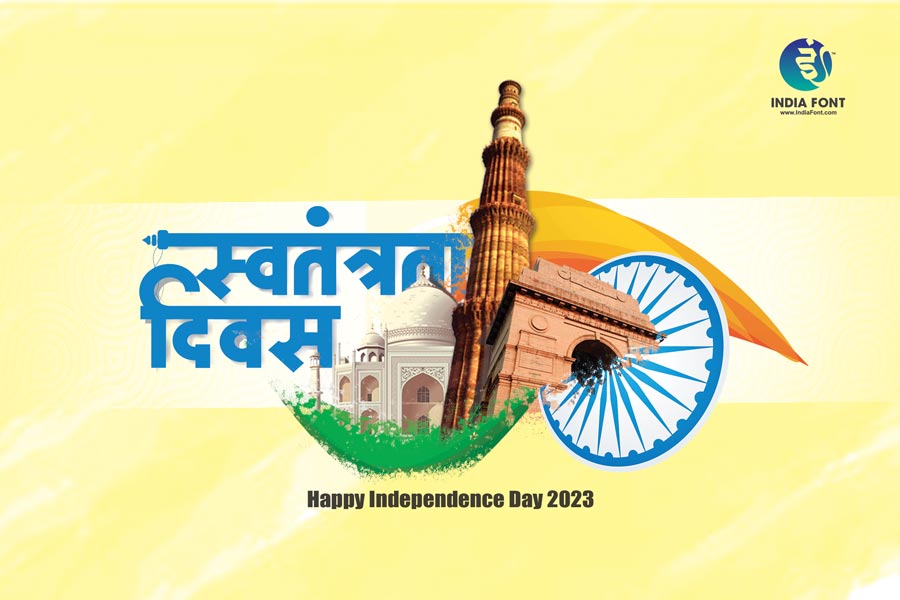
As Independence Day draws near, our excitement to celebrate this momentous occasion grows stronger. It's a time when we come together as a nation to commemorate the journey of our freedom and express our patriotic fervor. With the digital world becoming an integral part of our lives, sharing our heartfelt wishes, thoughts, and messages has evolved. And what better way to convey our emotions than through creatively designed graphics and text? This is where the significance of Free Indian font downloads comes into play.
IndiaFont recognizes the importance of enabling you to express your patriotism with style. We are committed to providing a range of exceptional Indian fonts that resonate with the essence of our culture, history, and national pride. As we gear up to celebrate Independence Day and express our love for the nation, let's explore the world of fonts that encapsulate the spirit of India.
Top 10 Free Indian Font Downloads
Our curated collection of Indian fonts serves as a tribute to our diverse culture and heritage. These fonts have been thoughtfully designed to capture the essence of our nation, allowing you to infuse your designs with a touch of patriotism. Whether you're designing social media posts, banners, invitations, or other creative content, our carefully selected Indian fonts are tailor-made to reflect your love for the country.
Premium Indian Fonts for Independence Day:
Elegant and graceful font perfect for patriotic invitations and ceremonial designs
Ceremonial
Epic and powerful font embodying the spirit of Indian epics and national pride
Epic
Handcrafted artistic font celebrating traditional Indian craftsmanship and culture
Traditional
Illuminating font symbolizing the light of freedom and national enlightenment
Spiritual
Royal and majestic font honoring Indian sovereignty and national dignity
Royal
Sophisticated calligraphy font perfect for formal Independence Day documents
Calligraphy
Sky-inspired font representing the limitless potential of free India
Modern
Bright and radiant font symbolizing the dawn of Indian independence
RadiantPatriotic Expression
Express your national pride with fonts specifically designed to celebrate India's rich cultural heritage and independence spirit.
Creative Freedom
Design stunning Independence Day graphics, social media posts, and banners that truly represent the essence of our nation.
Cultural Authenticity
Each font reflects authentic Indian cultural elements, ensuring your designs resonate with traditional and contemporary aesthetics.
Independence Day Font Selection
Independence Day is a time of pride, unity, and celebration. To complement your patriotic designs and messages, we've handpicked fonts that exude the spirit of this special day. These fonts pay homage to the sacrifices made by our freedom fighters and embody the aspirations of a free India. From elegant scripts to bold statements, our Independence Day font selection empowers you to create captivating visuals that resonate with your audience.
Freedom Spirit
Fonts that embody the essence of freedom, independence, and the triumphant spirit of our nation's liberation struggle.
Celebratory Design
Perfect for creating festive banners, greeting cards, and social media content celebrating Independence Day and national festivals.
Victory Symbolism
Typography that represents triumph, victory, and the successful achievement of independence through peaceful resistance and struggle.
National Pride
Inspire pride and unity among fellow Indians with fonts that celebrate our shared heritage and national identity.
Happy Independence Day in Different Fonts
As the nation prepares to mark another year of independence, we extend our warmest wishes to you and your loved ones. To make your greetings even more special, we offer a diverse range of "Happy Independence Day" messages, each beautifully designed in a unique font style. These fonts capture the essence of the occasion and enable you to convey your heartfelt emotions in a visually appealing manner.
Personal Greetings
Create personalized Independence Day wishes for family, friends, and colleagues using fonts that add warmth and sincerity to your messages.
Social Media Ready
Design eye-catching social media posts, stories, and updates that stand out in the digital celebration of our national day.
Brand Communication
Perfect for businesses and organizations looking to connect with audiences through patriotic brand messaging and campaigns.
As the nation prepares to unite in celebrating the spirit of independence, let's embrace the power of creativity and expression. IndiaFont's Free Indian font downloads offer a window into the heart and soul of our culture. These fonts allow you to infuse your designs with patriotism, unity, and the timeless values that our nation stands for. From elegant scripts to bold statements, our fonts empower you to share your love for the country in a language that resonates with everyone.